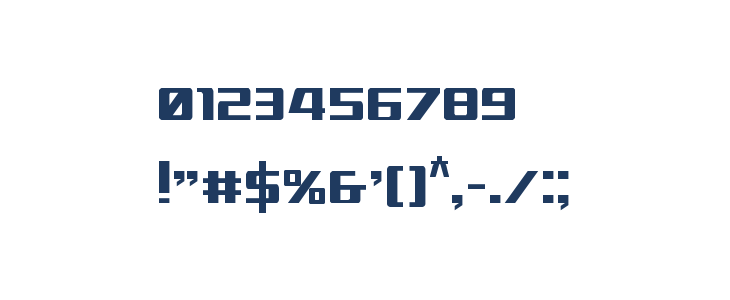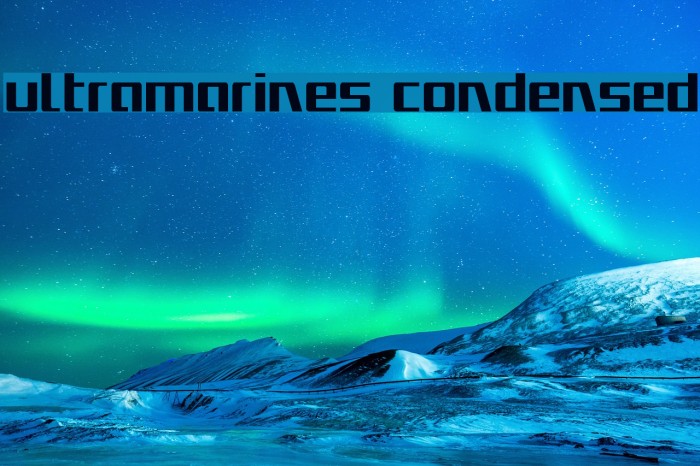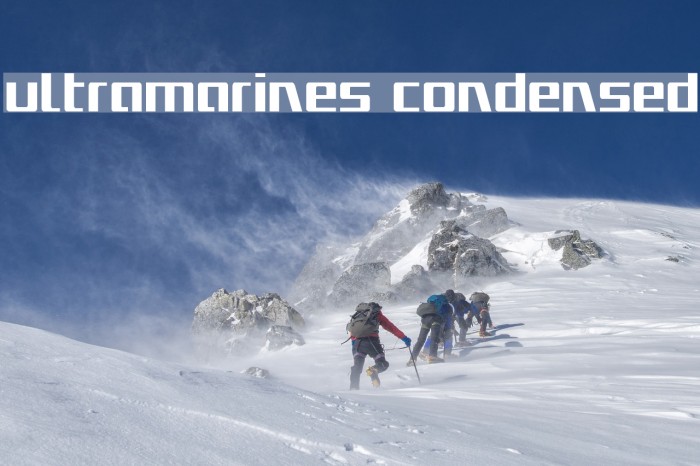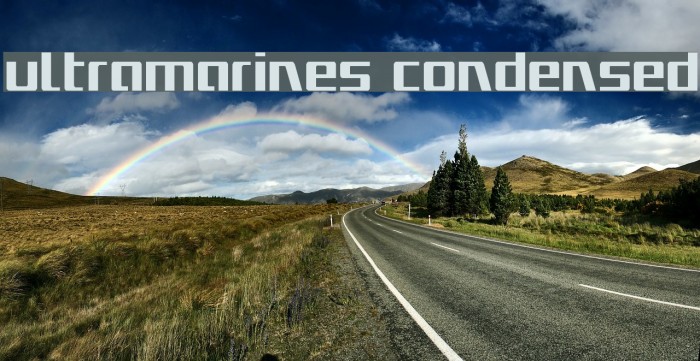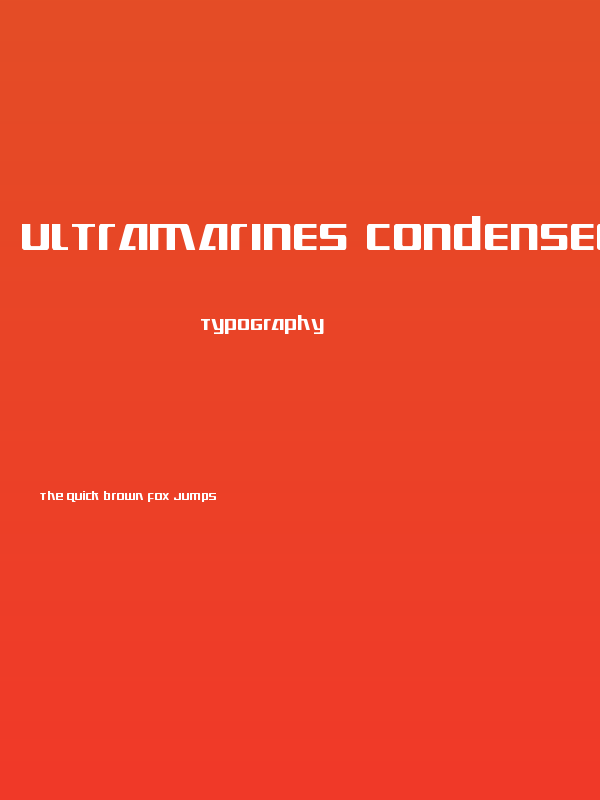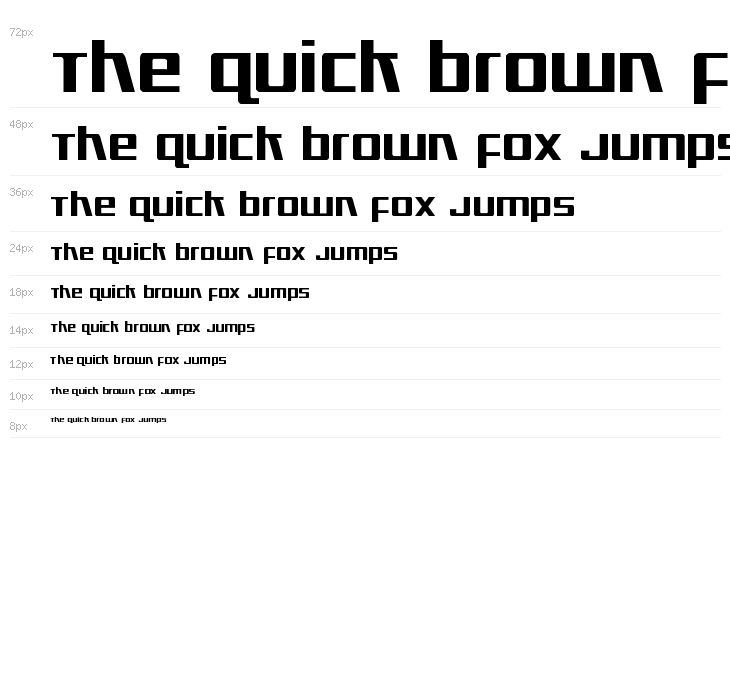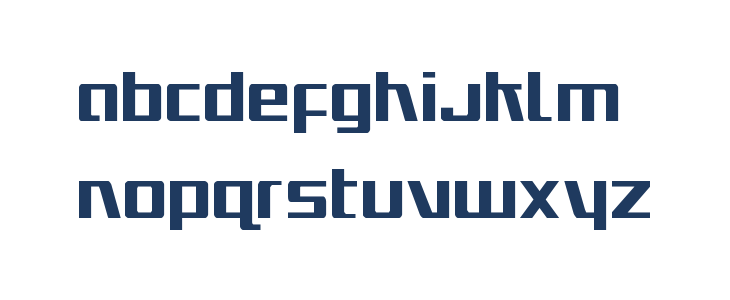
Ultramarines Condensed Font
Ultramarines Condensed Description
This font features a bold, geometric design with a condensed structure, giving it a modern and futuristic appearance. The characters are uniform in height and width, with sharp angles and clean lines that create a sense of precision and strength. The uppercase and lowercase letters maintain a consistent style, with minimal variation in stroke width, contributing to a cohesive look. The numerals and special characters are designed to match the overall aesthetic, ensuring a harmonious appearance across all text elements. This font's distinct style makes it suitable for projects that require a strong visual impact.